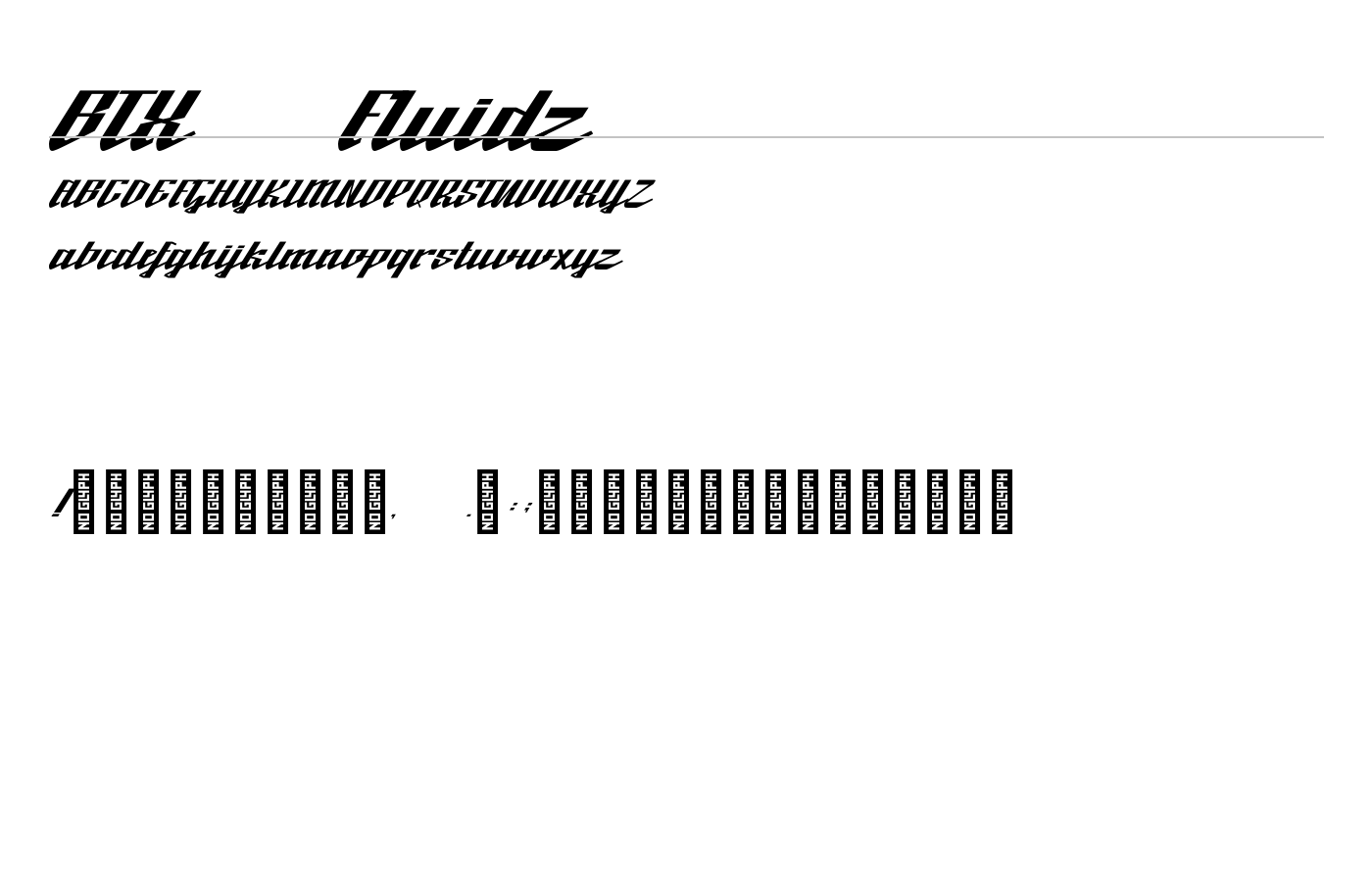
BTX-Fluidz is a bold, condensed script font with a strong slant that gives it a dynamic, futuristic feel. Its sharp, angular strokes combined with a sleek, calligraphic style make it perfect for modern and edgy branding, especially in sports, technology, or streetwear contexts. This font’s energetic look works best for eye-catching headlines, logos, and display uses where a sense of motion and style is desired.
BTX-Fluidz Font
About BTX-Fluidz Font
| Font family | BTX-Fluidz Font |
| Designer | Betwixt Designs |